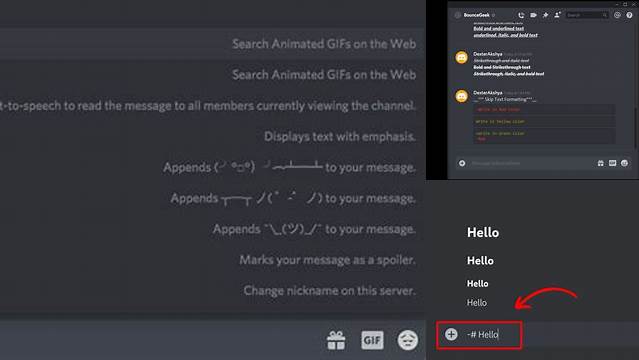
Discord Fonts & Commands: Make Small Text Easily
Hey guys! Ever wondered how to make your Discord messages stand out? Or maybe you've seen those super tiny texts and thought, "How do they do that?!" Well, you've come to the right place! In this article, we're diving deep into the world of Discord fonts commands, focusing particularly on how to create small text and other cool text formatting tricks. Whether you're a seasoned Discord user or just starting out, this guide will equip you with the knowledge to spice up your chats and express yourself in creative ways.
Understanding Discord Text Formatting
Before we jump into the specifics of small text and other commands, let's get a handle on the basics of Discord text formatting. Discord uses a system called Markdown, which is a simple way to format text using special characters. Think of it like a secret language that Discord understands. By using these characters, you can make your text bold, italic, underlined, and even create code blocks. Mastering these basic formatting options is crucial because it sets the stage for using more advanced techniques like creating small text.
Why is text formatting important on Discord? It's simple: it helps you communicate more effectively! Bold text can emphasize key points, italics can add a touch of sarcasm or highlight a title, and underlined text can draw attention to specific words or phrases. When you're chatting in a busy server, using formatting can make your messages easier to read and understand. Plus, it just looks cool!
Discord's text formatting is not just about aesthetics; it's about functionality. Imagine trying to share a code snippet without using a code block – it would be a jumbled mess! Similarly, using quotes can help you clearly attribute statements to different people in a conversation. Learning these basic Markdown features is like learning the grammar of Discord – it allows you to speak the language fluently and express yourself clearly.
So, how do you access these formatting options? It's all about the special characters. We'll delve into the specific characters and commands for bold, italics, underlines, and more in the next sections. But for now, just remember that Discord uses Markdown, and by understanding this system, you can unlock a world of text formatting possibilities. Think of it as adding superpowers to your words – allowing them to jump off the screen and grab the reader's attention. From emphasizing important announcements in your server to adding a touch of flair to your personal messages, mastering Discord text formatting is a valuable skill for any Discord user. So, let's get started and learn how to make your words shine!
The Secret to Small Text on Discord
Okay, guys, let's get to the real magic – creating small text on Discord! This is a trick that many users find intriguing, and it's surprisingly simple once you know the secret. The key to achieving this lies in a specific type of Markdown formatting that utilizes special characters to shrink your text. There are a couple of methods to make small text on Discord, but we will focus on the most popular and widely used method: the superscript trick.
The superscript trick involves using the caret symbol (^). When you place text after a caret, Discord renders it as superscript, which appears smaller and raised above the baseline. The more carets you use, the smaller and higher the text becomes. This method is commonly used to create small text effects in Discord messages. For example, if you type ^small
, the word "small" will appear smaller than the surrounding text. If you type ^^smaller
, it will appear even smaller! This is a fantastic way to add emphasis or create a playful effect in your messages. You can also combine multiple words by placing the ^ symbol before each word. For example, ^This ^is ^small ^text
will render each word in a smaller font.
But why is small text so popular on Discord? Well, it adds a unique visual element to your messages, allowing you to differentiate certain words or phrases. Imagine you're making a sarcastic comment – using small text can add a subtle, almost sneaky tone to your message. Or, if you want to add a disclaimer or a footnote to your message, small text is perfect for conveying that information without distracting from the main content. It's also great for adding superscript numbers or creating custom emojis using text characters. The possibilities are endless!
However, it's important to use small text judiciously. Overusing it can make your messages difficult to read and can even be perceived as annoying. Think of it as a spice – a little bit can enhance the flavor, but too much can ruin the dish. Use small text strategically to highlight specific words or phrases, add a touch of humor, or convey supplementary information. Don't use it for entire paragraphs or important announcements, as this can make your message less accessible.
In addition to the superscript method, there are other ways to achieve small text effects on Discord, such as using Unicode characters. However, the superscript trick is the most straightforward and widely supported method, making it the go-to choice for most users. So, next time you want to add a little something extra to your Discord messages, give small text a try. Experiment with different combinations of carets to achieve the desired effect, and watch how it transforms your chats!
So, go forth and unleash your newfound knowledge of Discord fonts and commands! Spice up your chats, express yourself creatively, and make your messages shine. With a little practice and experimentation, you'll be a Discord text formatting master in no time!